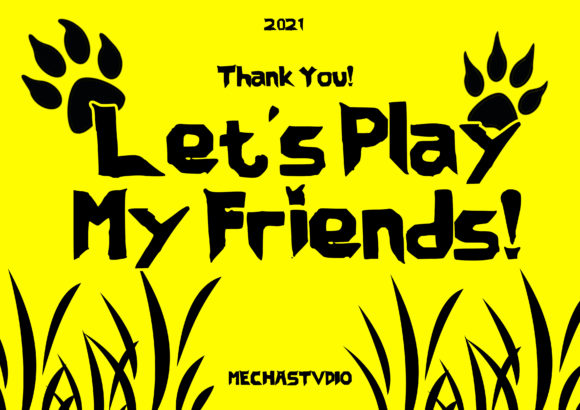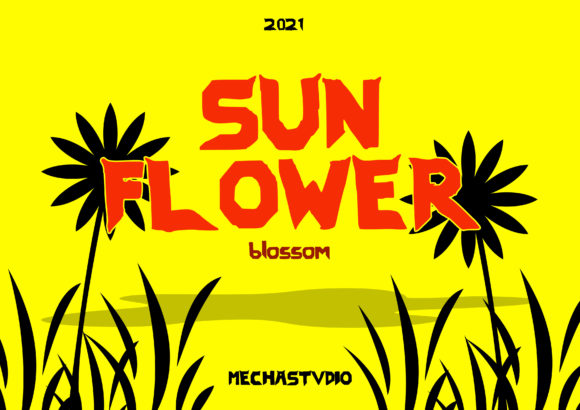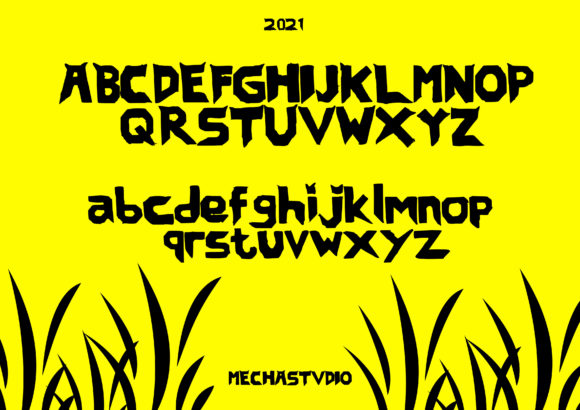
Introduction to Play Sharp Font
Play Sharp font style is a modern display font that is suitable for logo design, social media posts, movie and book titles, short text, and even long text creations.
Add it to your creative projects and watch how it captures your audience’s attention .
Key Features of Play Sharp Font
Why Choose Play Sharp Font?
Play Sharp Font offers exceptional quality and versatility, making it a valuable addition to your design toolkit. Whether you’re creating for personal projects or commercial use, Play Sharp Font delivers professional results.